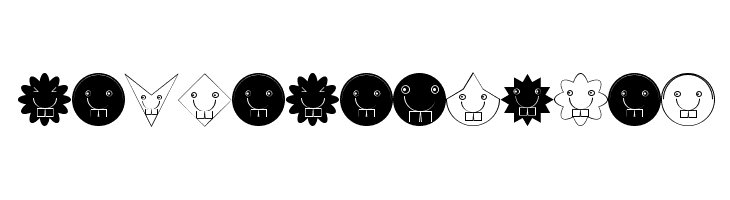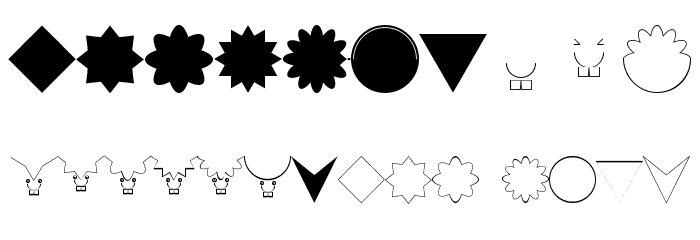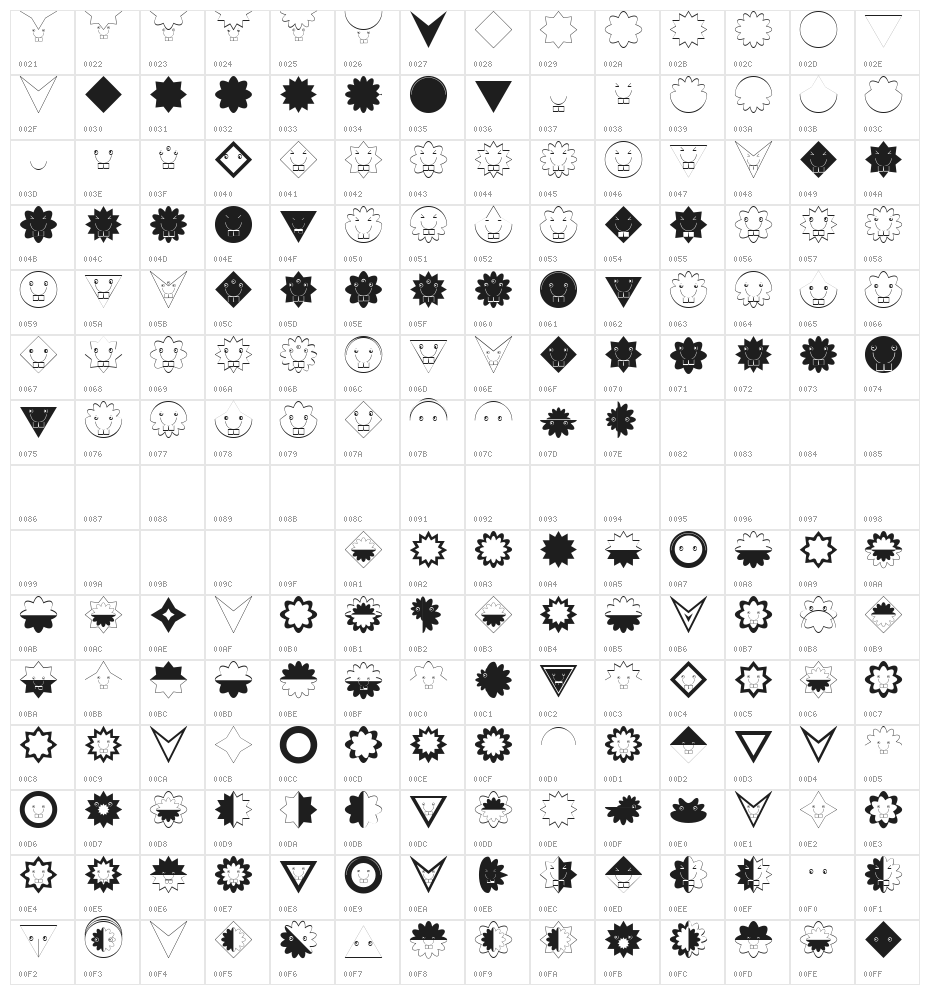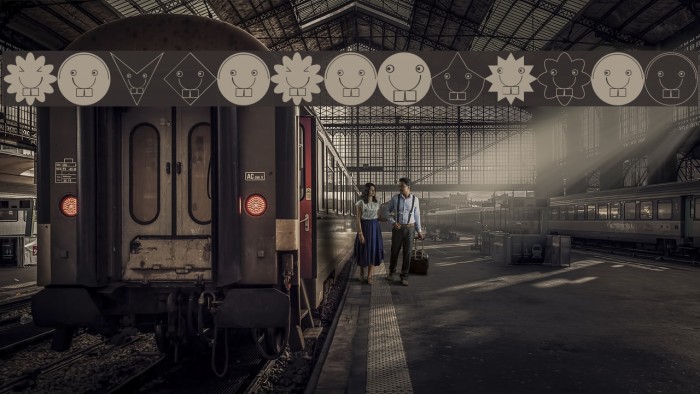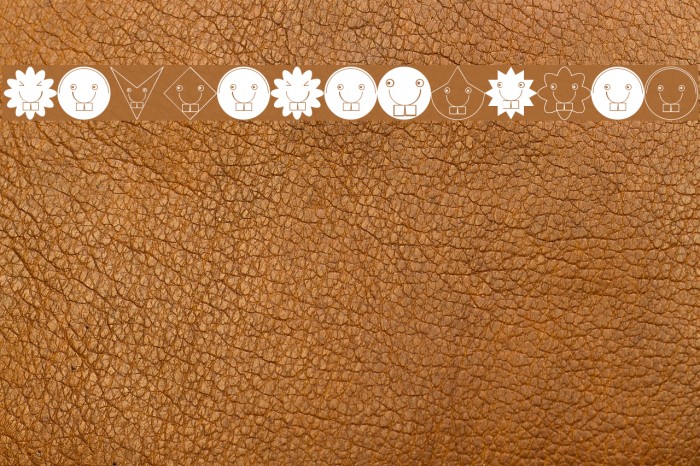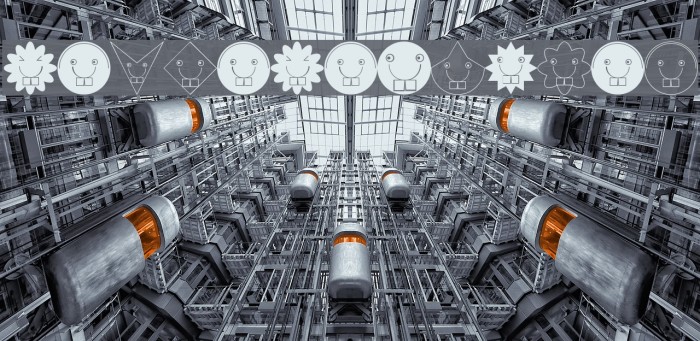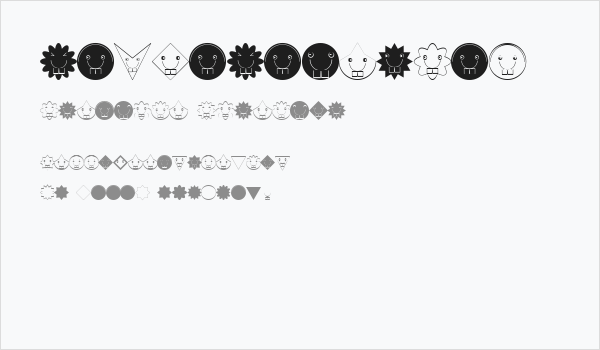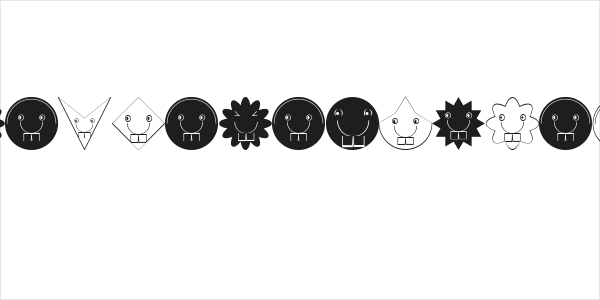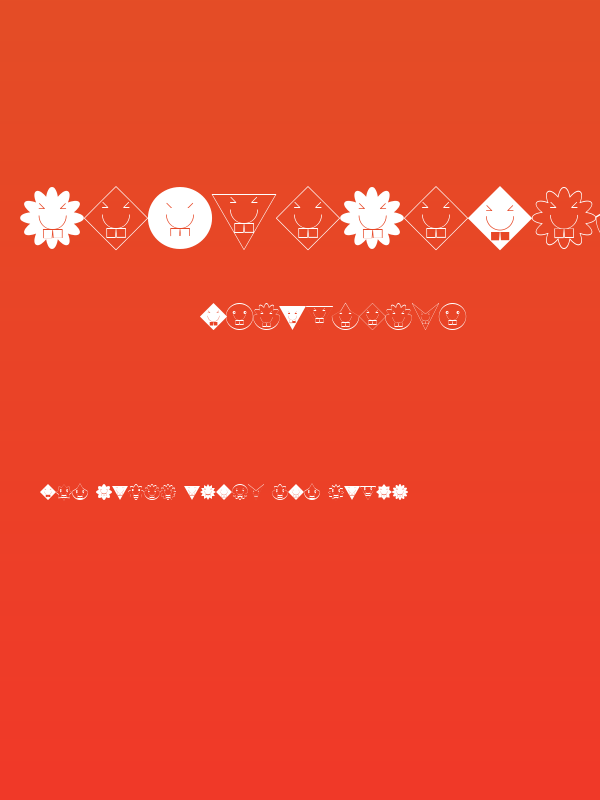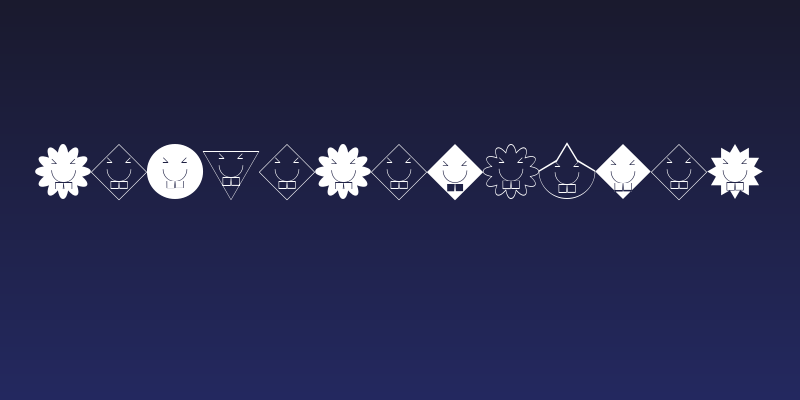
MangaMaterial Font
MangaMaterial Description
A playful, decorative dingbat font featuring cartoonish geometric shapes with expressive faces, including circles, triangles, diamonds, and starbursts, both filled and outlined, with a manga-inspired aesthetic.
| Overall Style | Decorative, Playful, Cartoonish |
| Use Case | Icons, Decorative elements, Themed dividers, Visual accents |
| Proposed Projects | Comics, children's books, playful branding, stickers, educational materials, manga-inspired designs. |